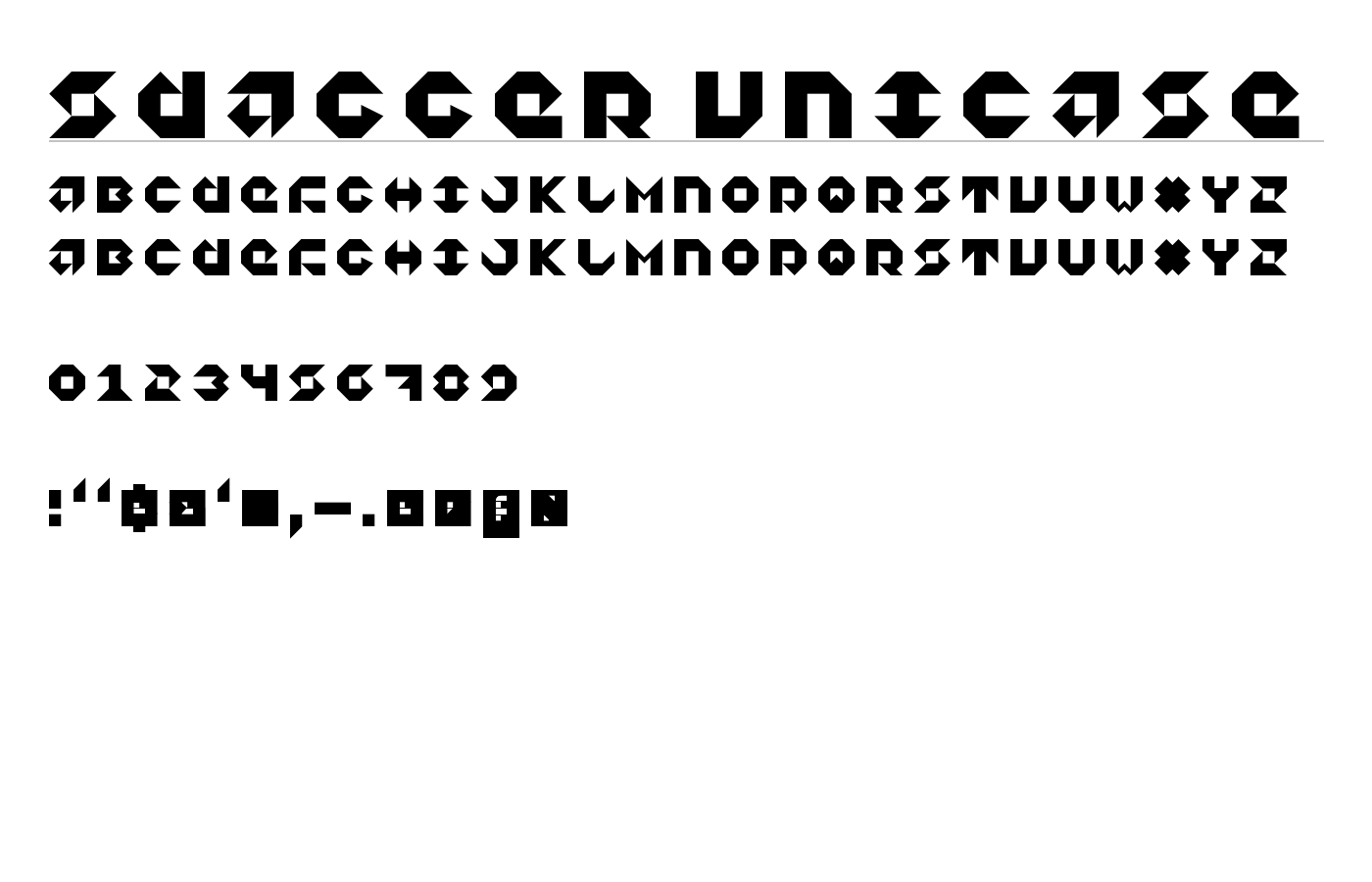
5Dagger Unicase is a bold, geometric sans serif font with a striking angular design reminiscent of futuristic or digital aesthetics. Its unicase letterforms and sharp, blocky shapes create a modern, edgy look perfect for logos, headlines, and creative projects seeking a strong, tech-inspired personality. This font stands out with its unique, compact structure, making it ideal for attention-grabbing displays and branding in innovative or gaming-related contexts.
5Dagger Unicase Font
About 5Dagger Unicase Font
| Font family | 5Dagger Unicase Font |
| Designer | Noah - 10 year old typomaniac |